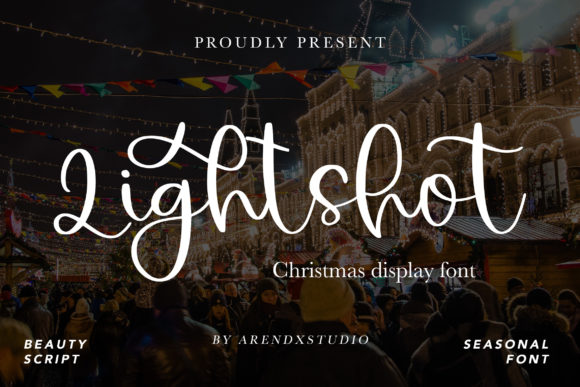
Prepare to be dazzled by Lightshot, a remarkable script font that will cast a magical spell on your designs. Its graceful curves and playful characters will dance their way into your heart, adding a touch of whimsy and enchantment to every project.
Imagine your blog headers adorned with Lightshot's captivating presence. Each letter will leap off the screen, inviting readers to delve into your captivating content. Its charming nature will draw them in, creating an irresistible allure that keeps them scrolling.
Lightshot is not merely a font; it's an artistic masterpiece that transforms ordinary text into extraordinary expressions. Its versatility knows no bounds, effortlessly complementing a wide range of design styles. Whether you're crafting elegant invitations, whimsical posters, or heartfelt greeting cards, Lightshot will elevate your creations to new heights.
With Lightshot at your fingertips, you'll never settle for ordinary fonts again. Its enchanting charm will ignite your creativity, empowering you to craft designs that shine brighter than a thousand stars. So, embrace the allure of Lightshot today and let your imagination soar to new heights!